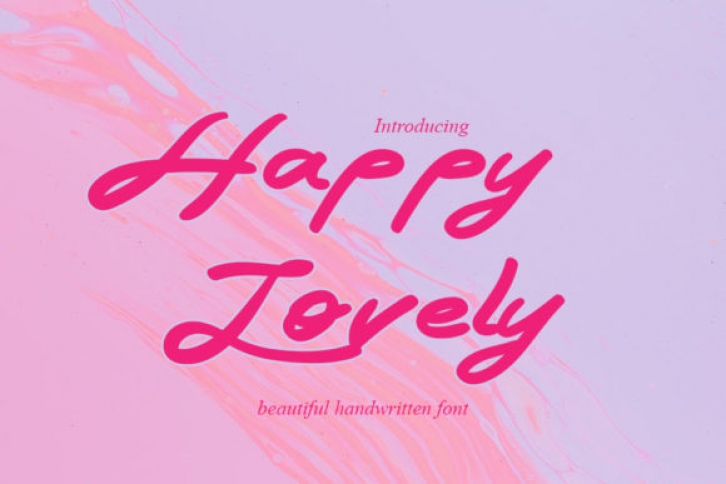
Happy Lovely is a timeless and cursive handwritten font. Expertly designed to become a true favorite, this font has the potential to bring each of your creative ideas to the highest level!